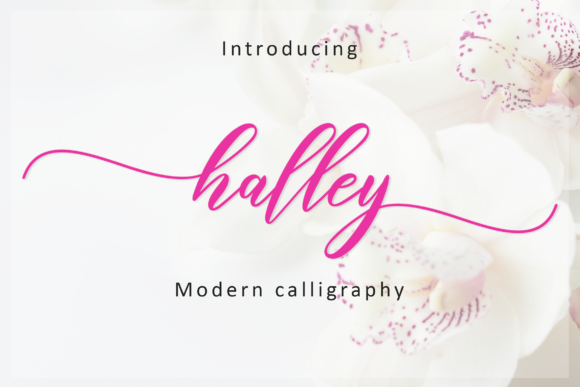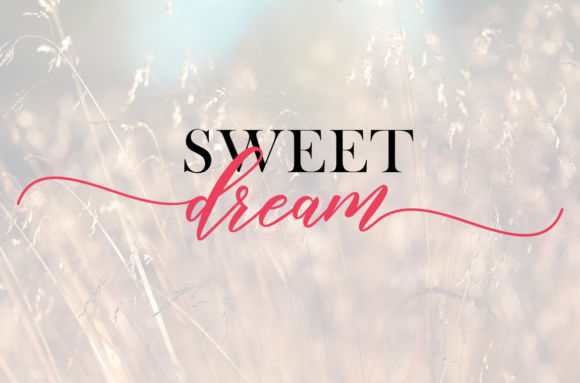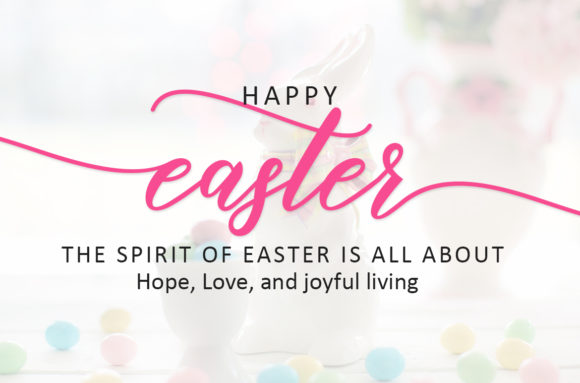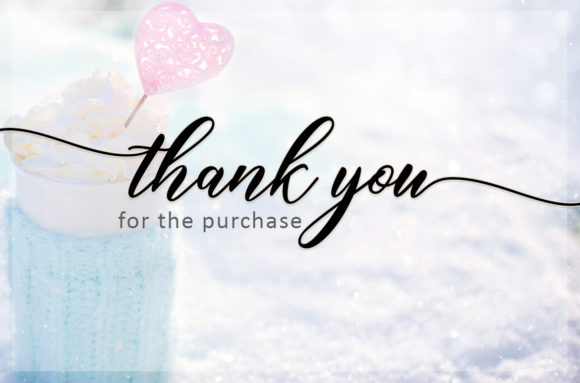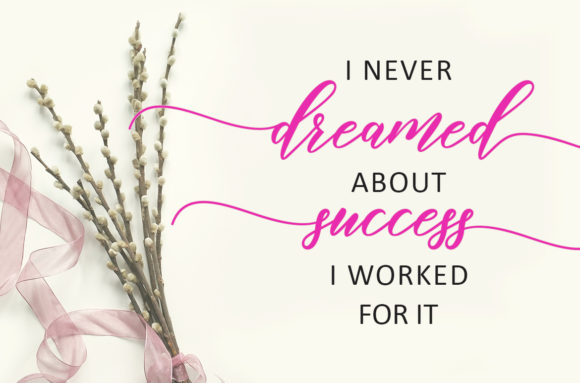
Halley Script Font
About Halley Script Font
Halley is a wonderfully light and romantic handwritten font with a charming twist. Fall in love with its amazing swashes!